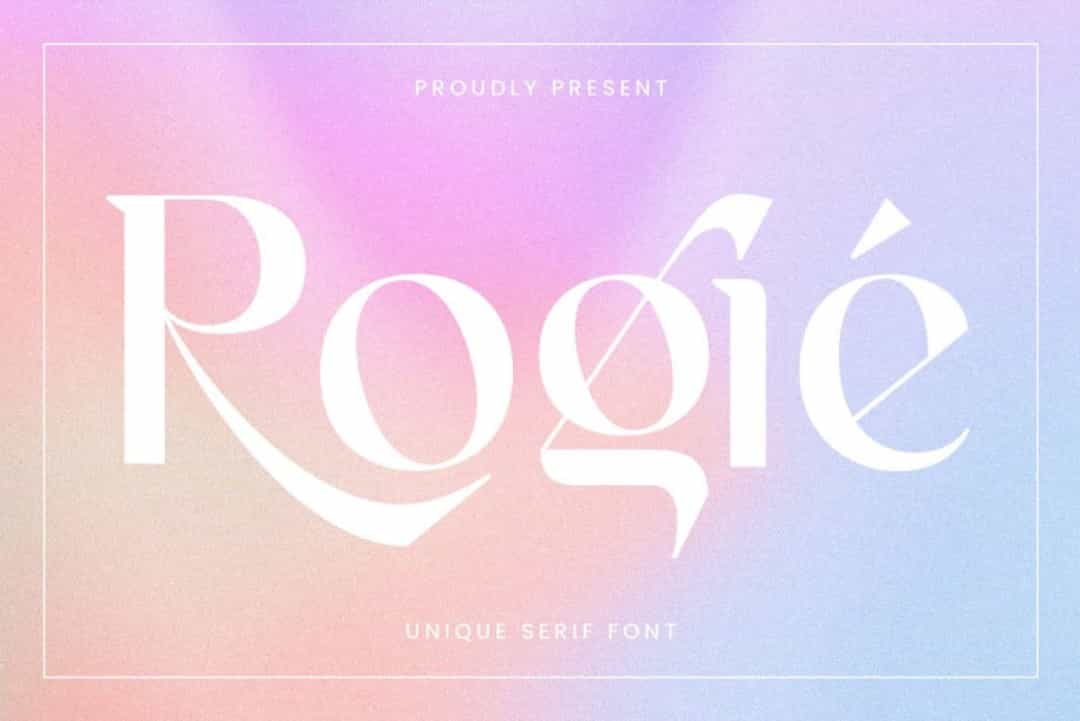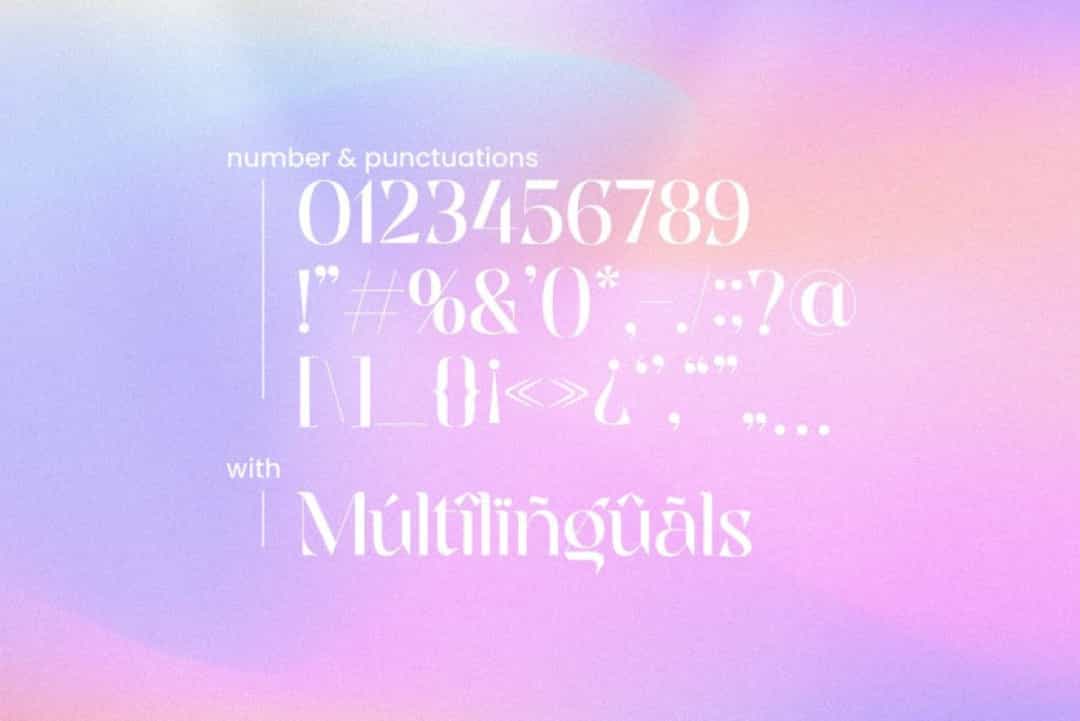
Hello and Welcome to Rogie Ligature font! A stylish and distinctive display serif font which uses ligatures to seamlessly join letters. Ideal for adding a creative edge to logos with words, Rogie Ligature features 22 ligatures with 5 alternate options in addition to looking amazing – although ligature can easily be disabled if standard writing is desired.